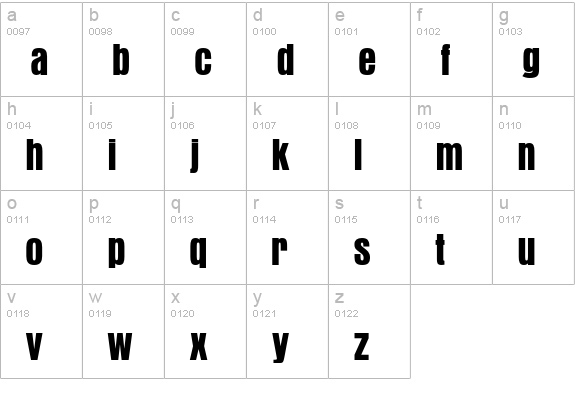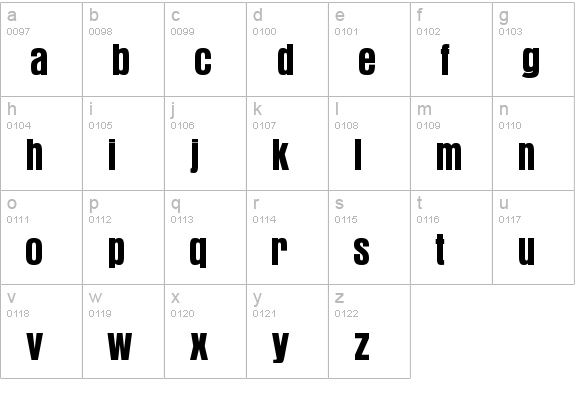
AT Aura font is a modern and elegant typeface that exudes sophistication and style. With its sleek lines and contemporary design, it is perfect for a wide range of projects, from branding to editorial design. The font features a unique blend of traditional and modern elements, making it versatile and eye-catching. What sets AT Aura font apart is that it is available for free download at FontsMarket.com. This means that you can easily access this high-quality font without any cost, making it a valuable addition to your font library. Whether you are a designer looking for a new typeface to elevate your projects or a business in need of a fresh font for branding purposes, AT Aura font is a great choice that won't break the bank. Don't miss out on this opportunity to enhance your designs with the AT Aura font. Download it for free today at FontsMarket.com and see how it can elevate your projects to the next level.